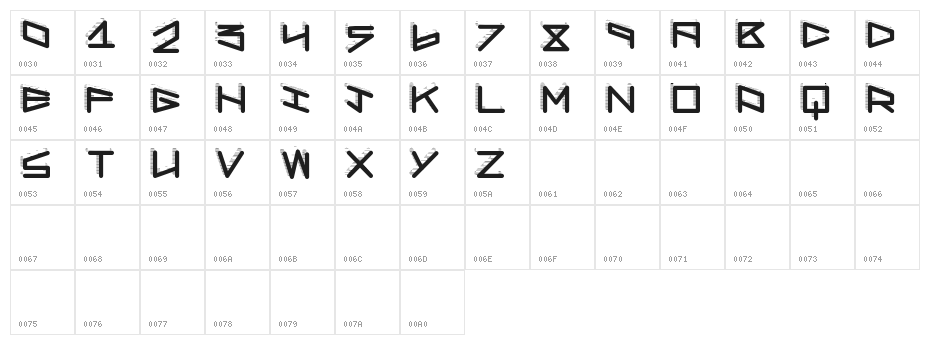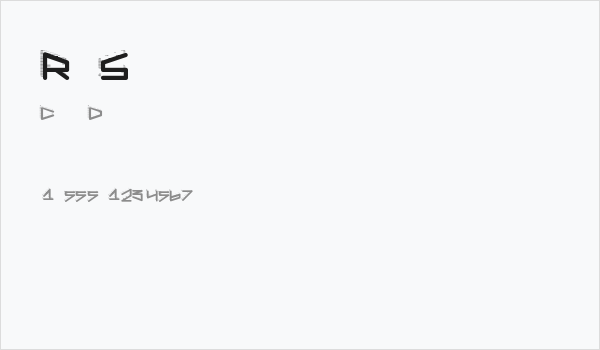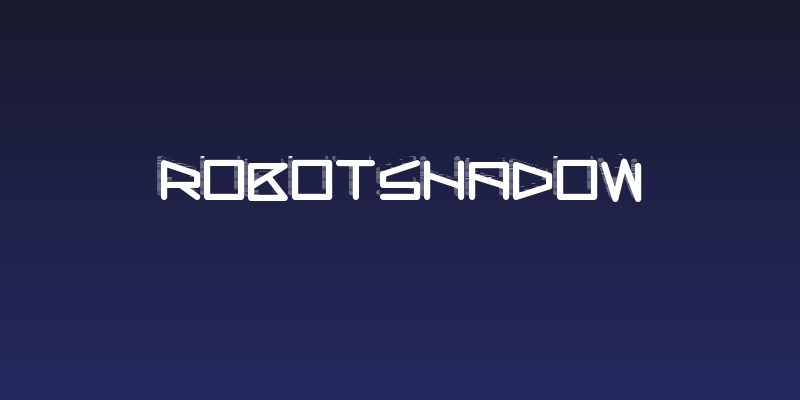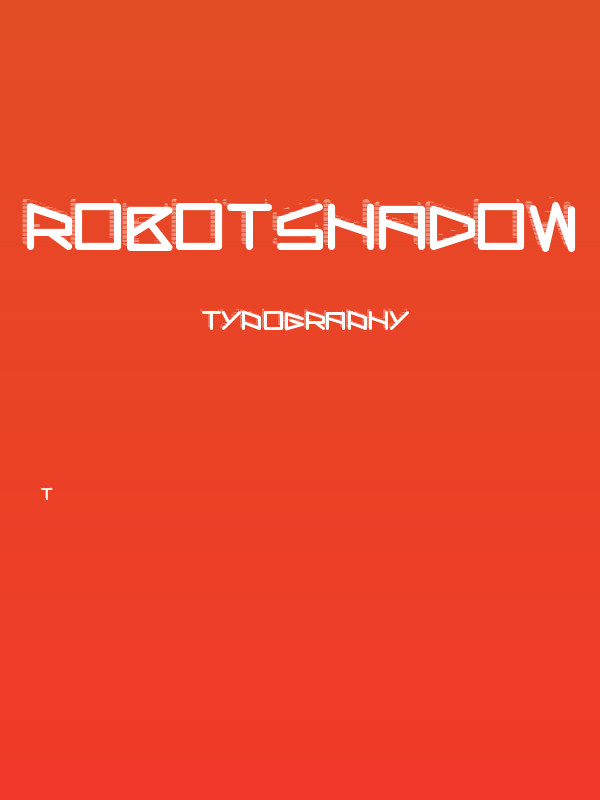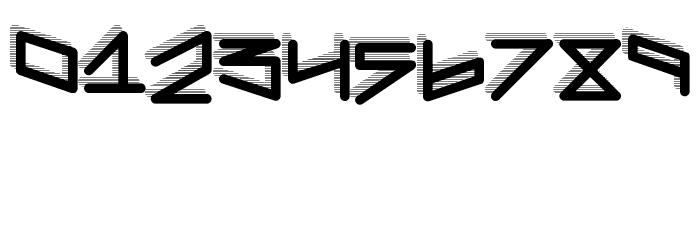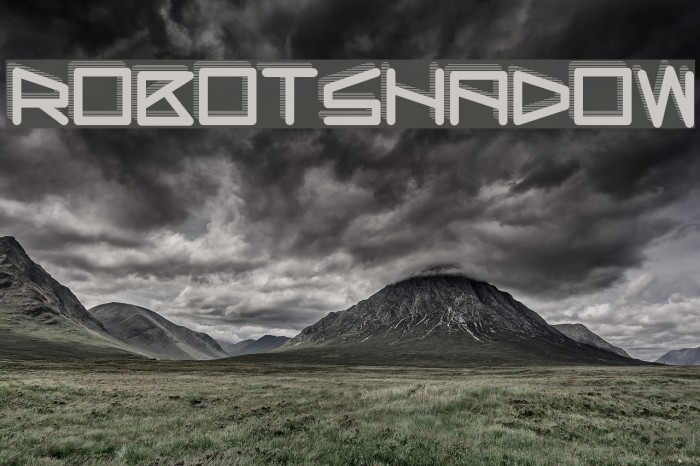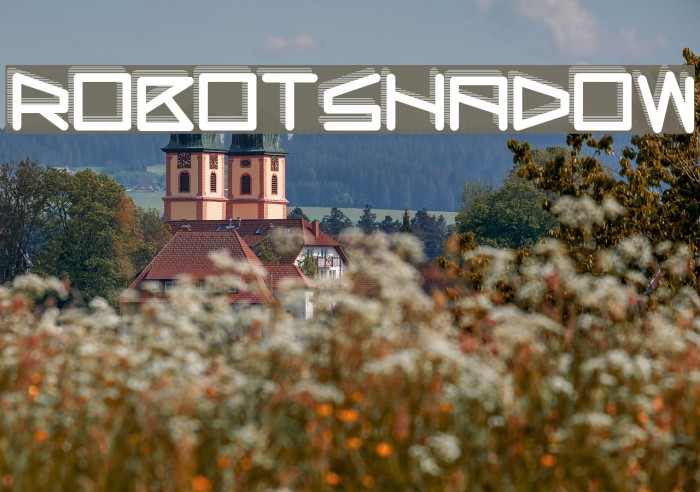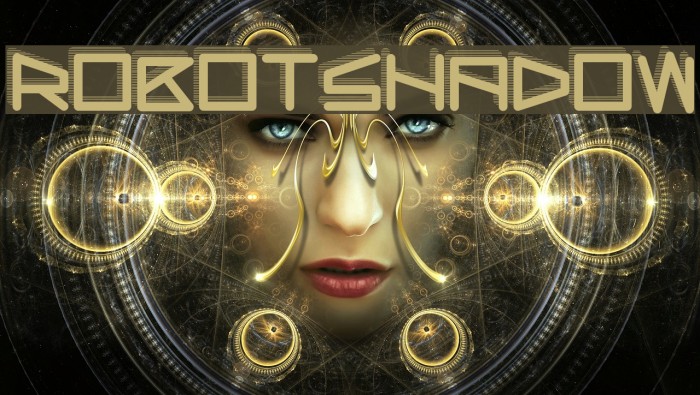
RobotShadow Font
RobotShadow Description
This font features a futuristic and geometric design with a distinct shadow effect that adds depth and dimension to each character. The uppercase and lowercase letters are constructed with angular lines and sharp edges, creating a modern and tech-inspired aesthetic. The numbers and special characters maintain this cohesive style, making the font suitable for digital and sci-fi themed projects. The shadow effect is consistent across all characters, enhancing the overall visual impact.